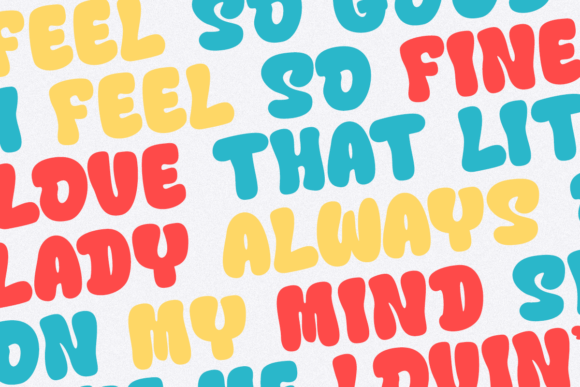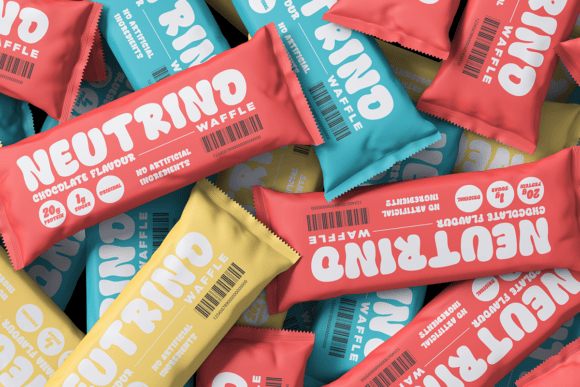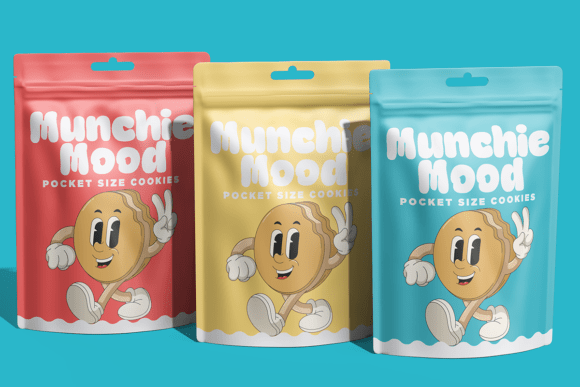
Introduction to Jacklin Font
Jacklin is a groovy on the classic bubble style.
Jacklin features rounded edges and soft curves that bring a playful and sophisticated touch to any design Perfect for posters, branding, packaging, and headlines, this font stands out effortlessly.
Key Features of Jacklin Font
Why Choose Jacklin Font?
Jacklin Font offers exceptional quality and versatility, making it a valuable addition to your design toolkit. Whether you’re creating for personal projects or commercial use, Jacklin Font delivers professional results.